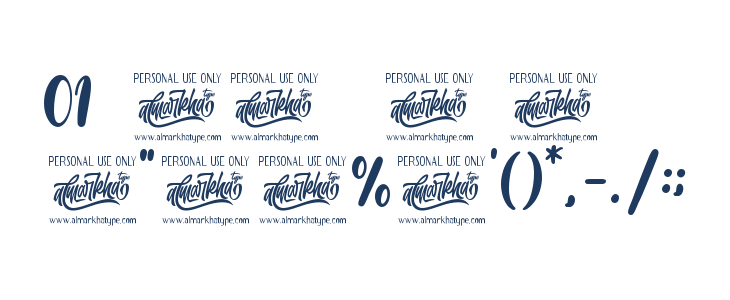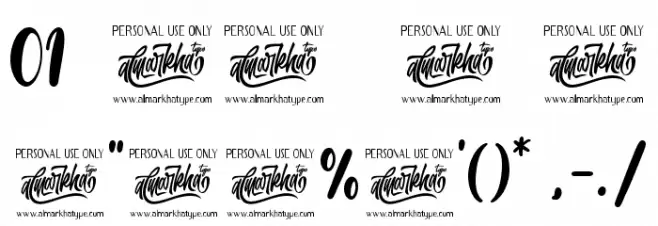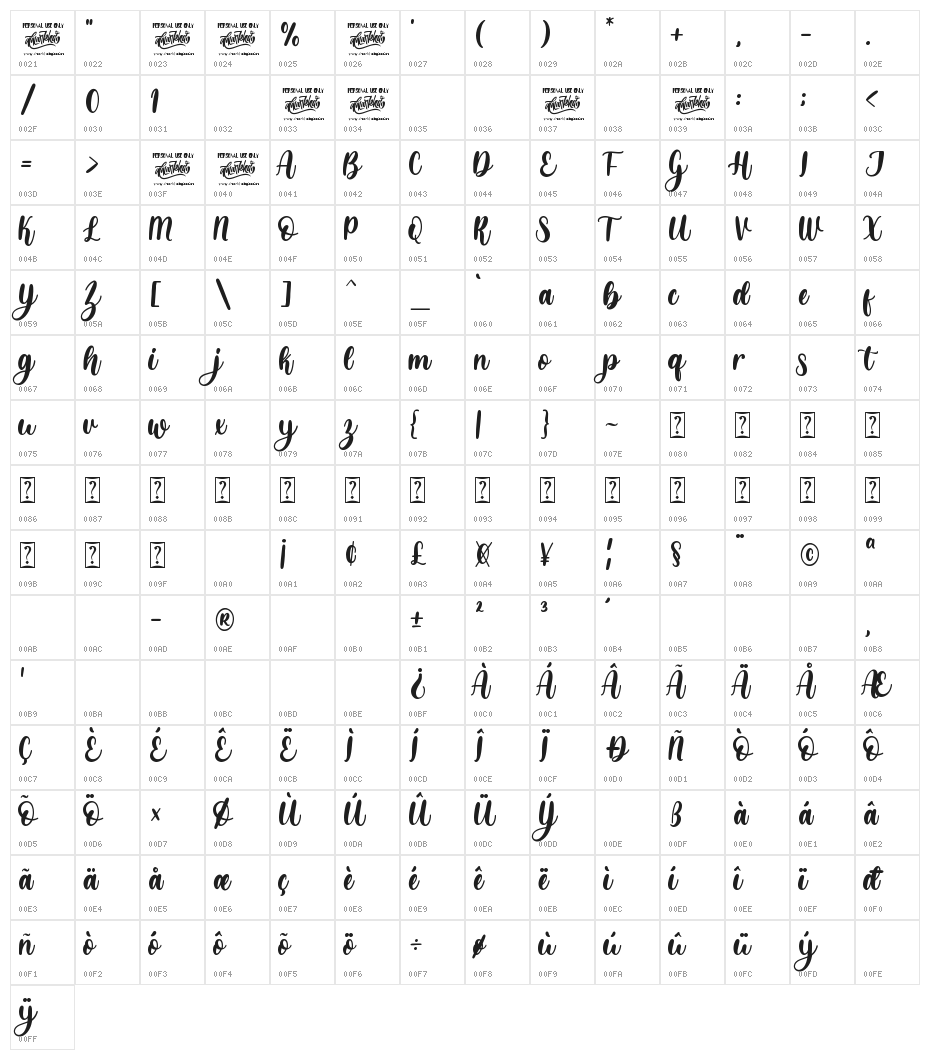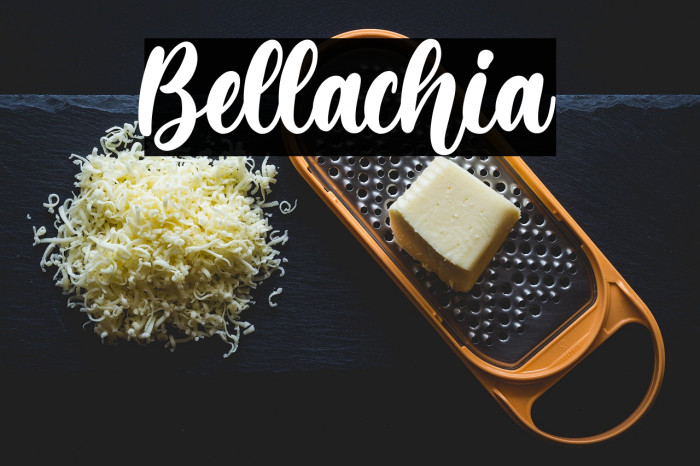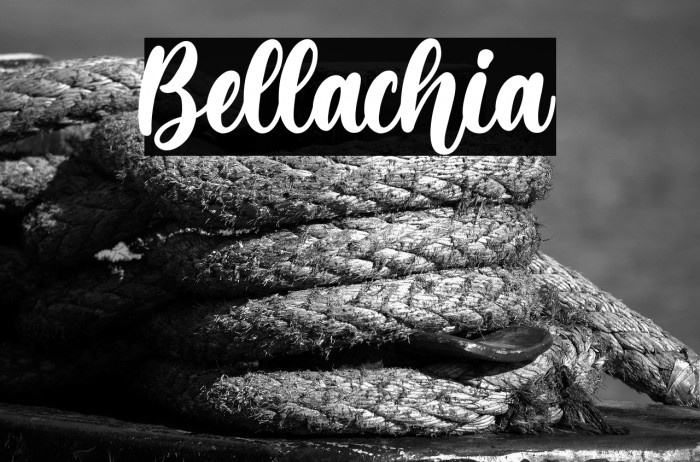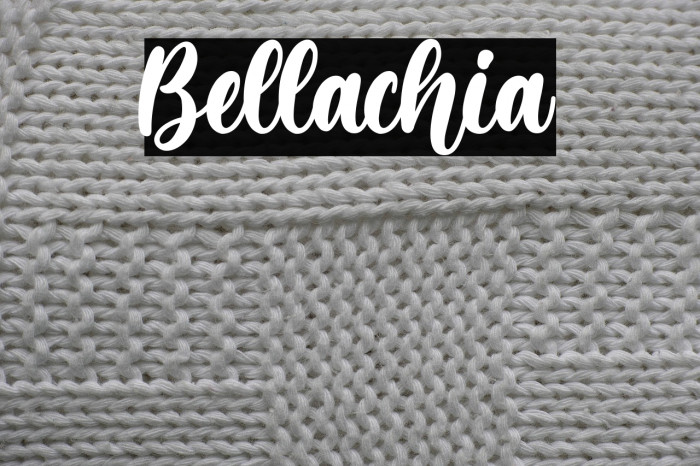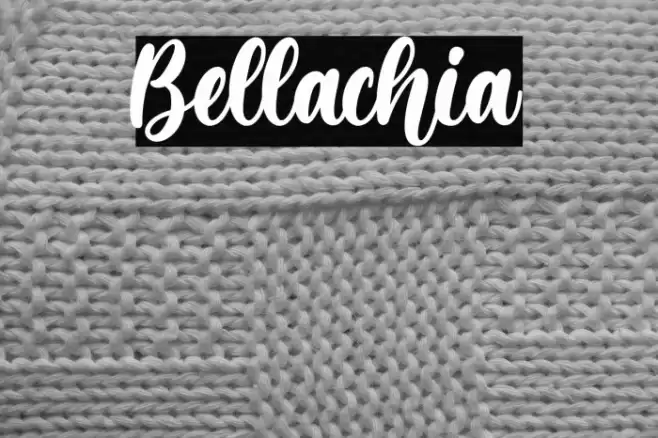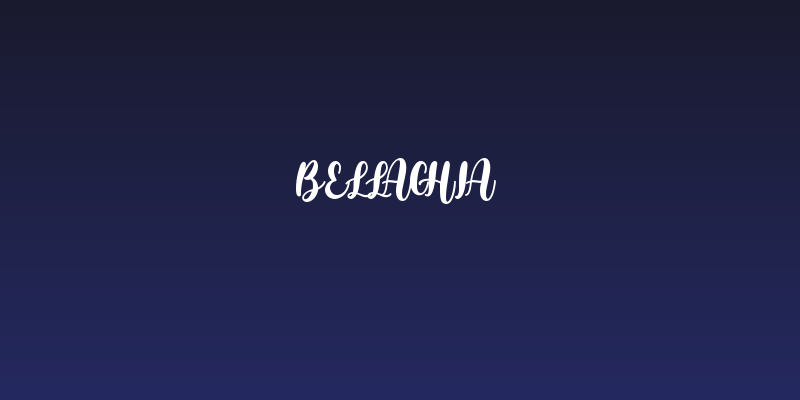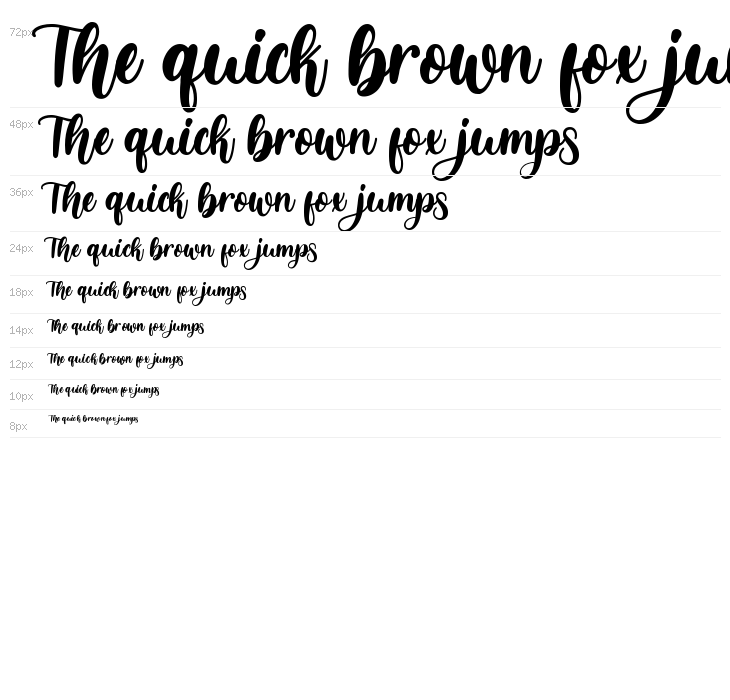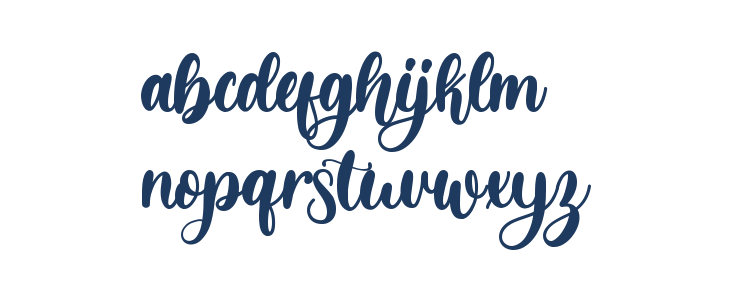
Bellachia Font
Bellachia Description
This font features a bold, flowing script style with a modern flair. The uppercase letters are elegantly curved, with a consistent thickness that adds to its bold appearance. The lowercase letters maintain a cohesive style, with smooth connections between characters, enhancing its cursive nature. The numbers and special characters are designed to match the overall aesthetic, providing a harmonious look across all elements. The font's playful yet sophisticated style makes it suitable for creative projects.
| Proposed Projects | Ideal for branding, invitations, greeting cards, and social media graphics. |